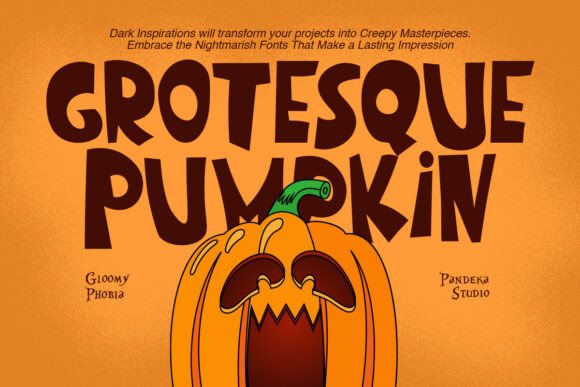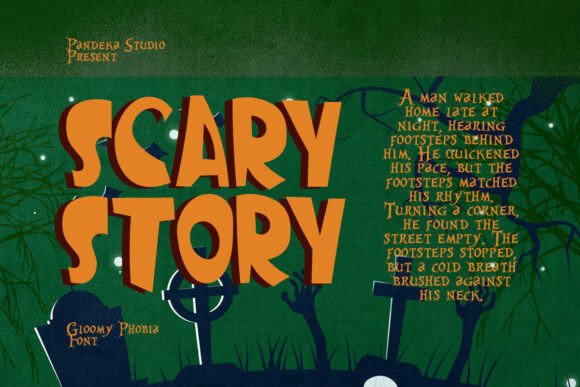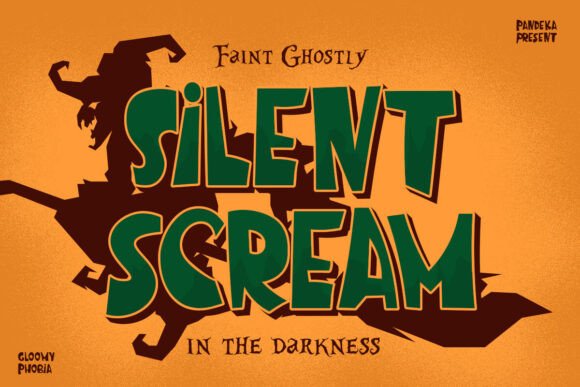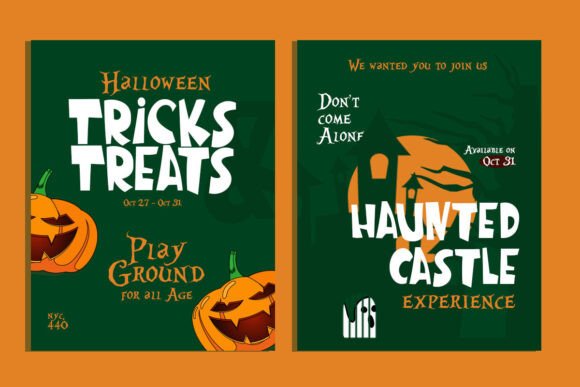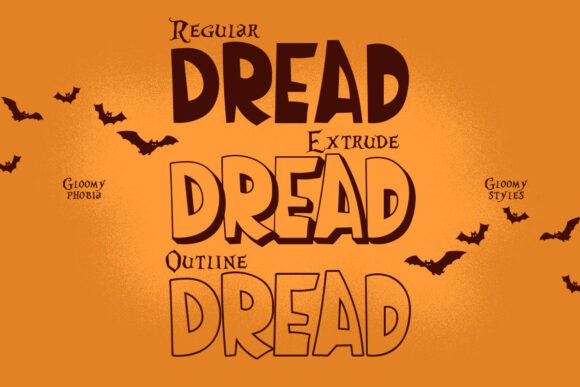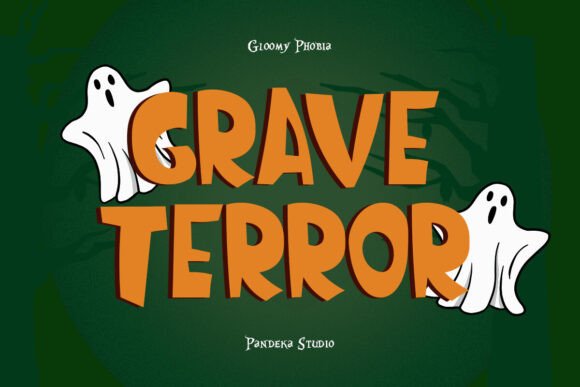
Unleash the Fear: Introducing Gloomy Phobia – The Horror Display Font
Are you ready to add a dash of terror to your designs? Look no further than Gloomy Phobia, a horror display font that’s sure to send shivers down the spines of your audience. Imagine a desolate, eerie forest cloaked in fog, the distant crack of twigs, whispers echoing in the cold air – that’s the kind of atmosphere Gloomy Phobia can help you create.
The Perfect Font for Horror and Creepiness
Gloomy Phobia is a display font designed specifically for horror-themed designs, whether it’s for a movie poster, a book cover, or a creepy invitation. Its unique and haunting style is sure to grab attention and evoke a sense of fear and unease. The font comes in three haunting styles: Regular, Outline, and Extrude, giving you the flexibility to choose the one that best fits your design needs.
Three Haunting Styles to Choose From
The three styles of Gloomy Phobia offer different levels of depth and texture, allowing you to customize your design to your heart’s content.
- Regular: The regular style is perfect for creating bold and eerie text that will grab attention. Its solid and compact design makes it ideal for headlines and titles.
- Outline: The outline style offers a more subtle and sophisticated look, perfect for creating a sense of unease and tension. Use it to add a touch of horror to your design without overpowering it.
- Extrude: The extrude style takes the horror factor to the next level with its 3D-like effect. It adds an extra layer of depth to your design, making it perfect for creating a sense of foreboding and dread.
Why Designers and Crafters Love Gloomy Phobia
Gloomy Phobia is not just a font – it’s a design tool that can help you create a specific atmosphere and mood. Here are just a few reasons why designers and crafters love Gloomy Phobia:
- High-Quality Design: Gloomy Phobia is designed with high-quality and legibility in mind. The font is clear and readable, even at small sizes.
- Versatile: Gloomy Phobia can be used for a wide range of design projects, from horror-themed designs to more subtle and sophisticated projects.
- Unique: Gloomy Phobia is a unique font that will set your designs apart from the rest. Its haunting style is sure to grab attention and leave a lasting impression.
Tips and Tricks for Using Gloomy Phobia
Here are a few tips and tricks for getting the most out of Gloomy Phobia:
- Experiment with Different Styles: Don’t be afraid to experiment with different styles of Gloomy Phobia. Try combining the regular, outline, and extrude styles to create a unique look.
- Use it for Headlines and Titles: Gloomy Phobia is perfect for headlines and titles. Use it to grab attention and create a sense of horror and unease.
- Pair it with Other Fonts: Gloomy Phobia can be paired with other fonts to create a unique and interesting look. Try pairing it with a sans-serif font for a bold and modern look.
Gloomy Phobia is a horror display font that’s sure to add a dash of terror to your designs. With its three haunting styles and high-quality design, it’s perfect for creating a sense of fear and unease. Whether you’re a designer or crafter, Gloomy Phobia is a must-have font in your collection. So why wait? Download Gloomy Phobia today and start creating your own horror-themed designs.